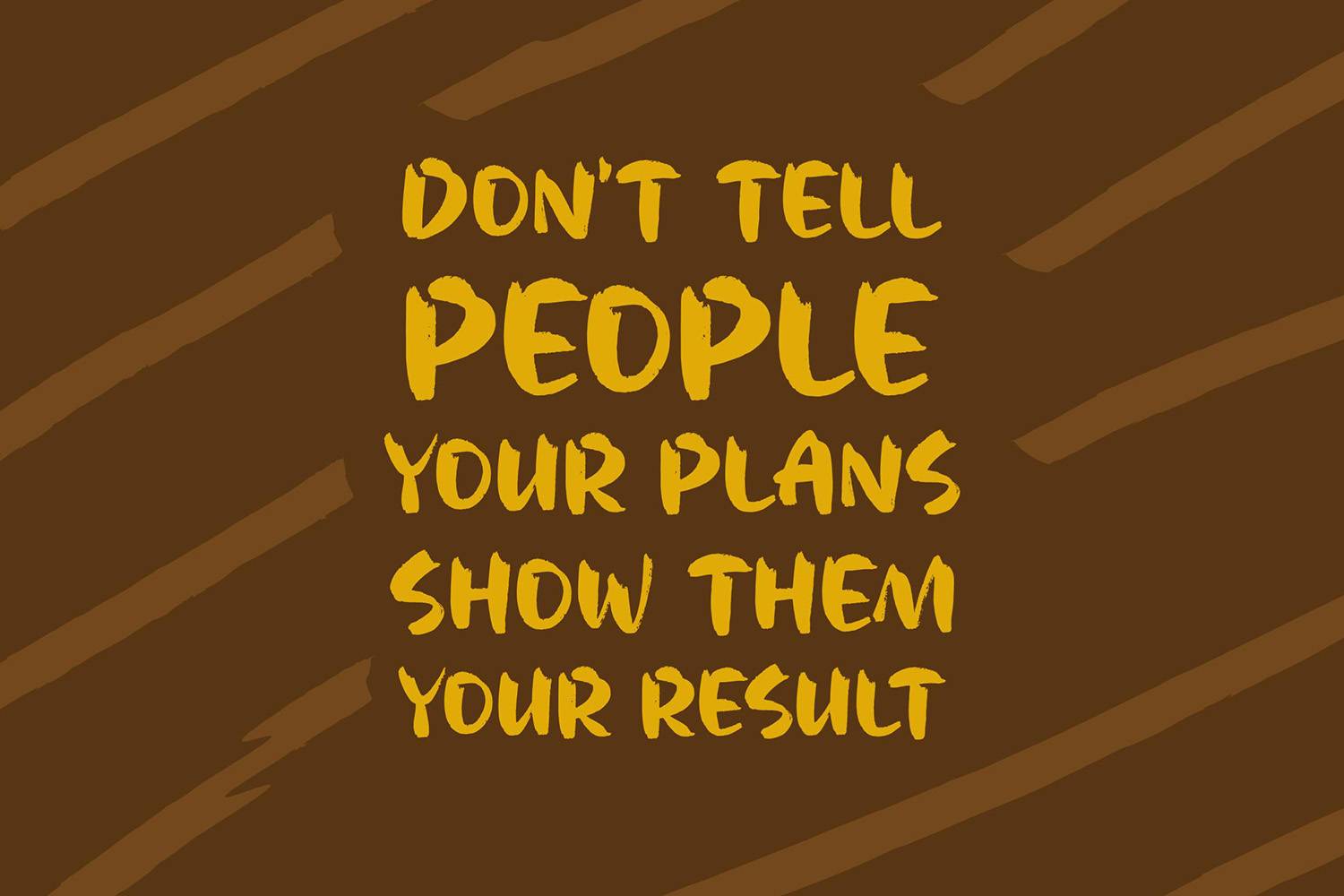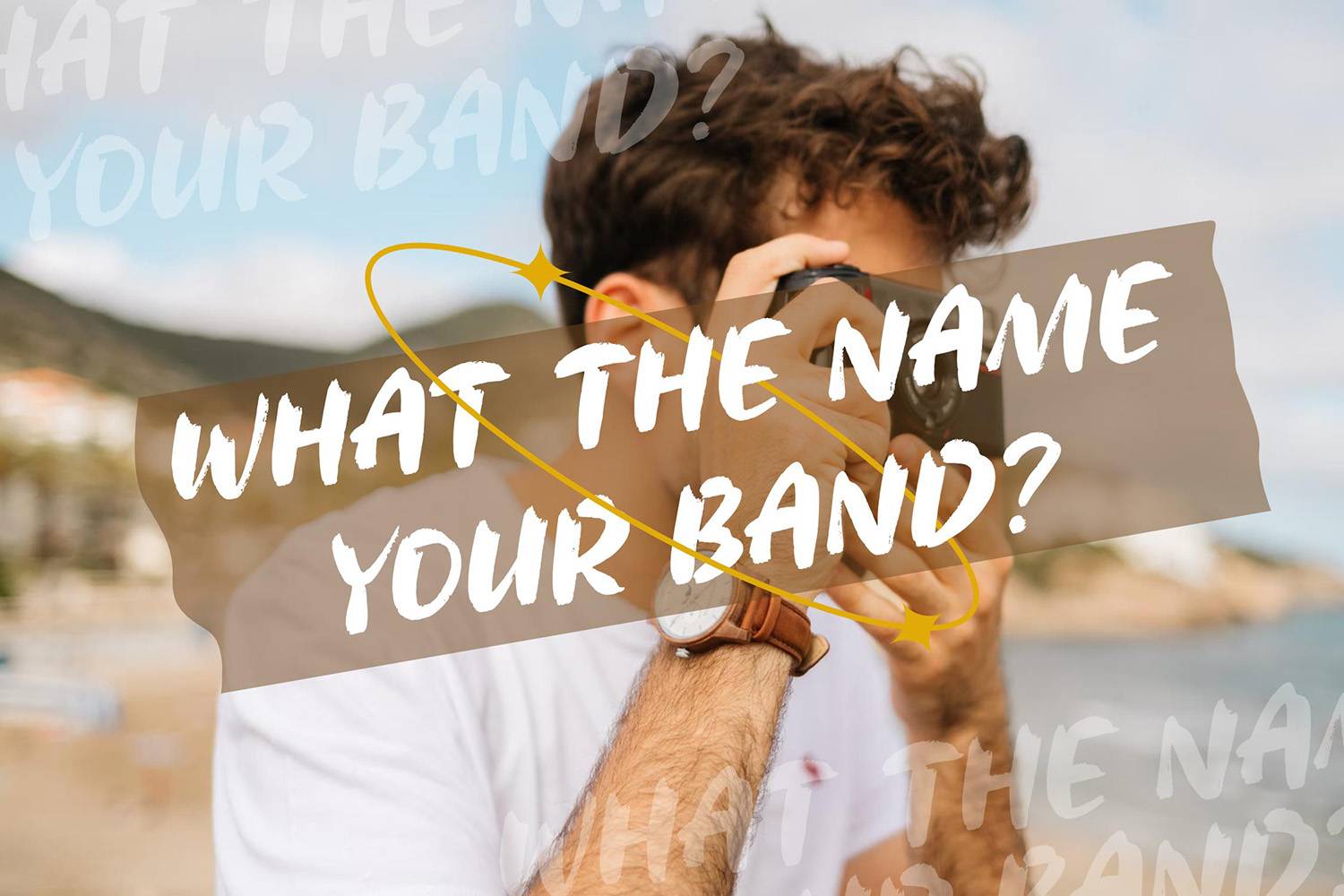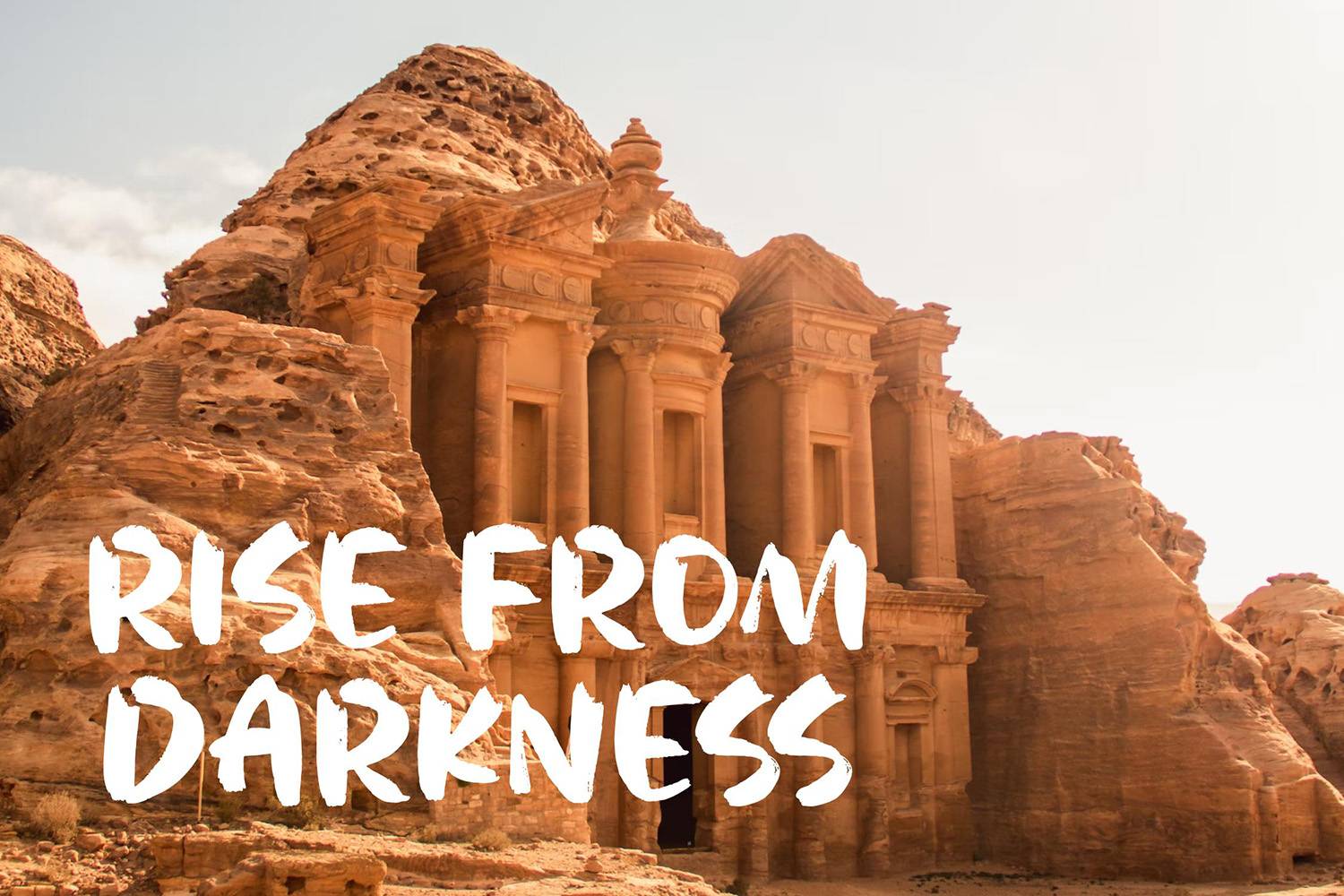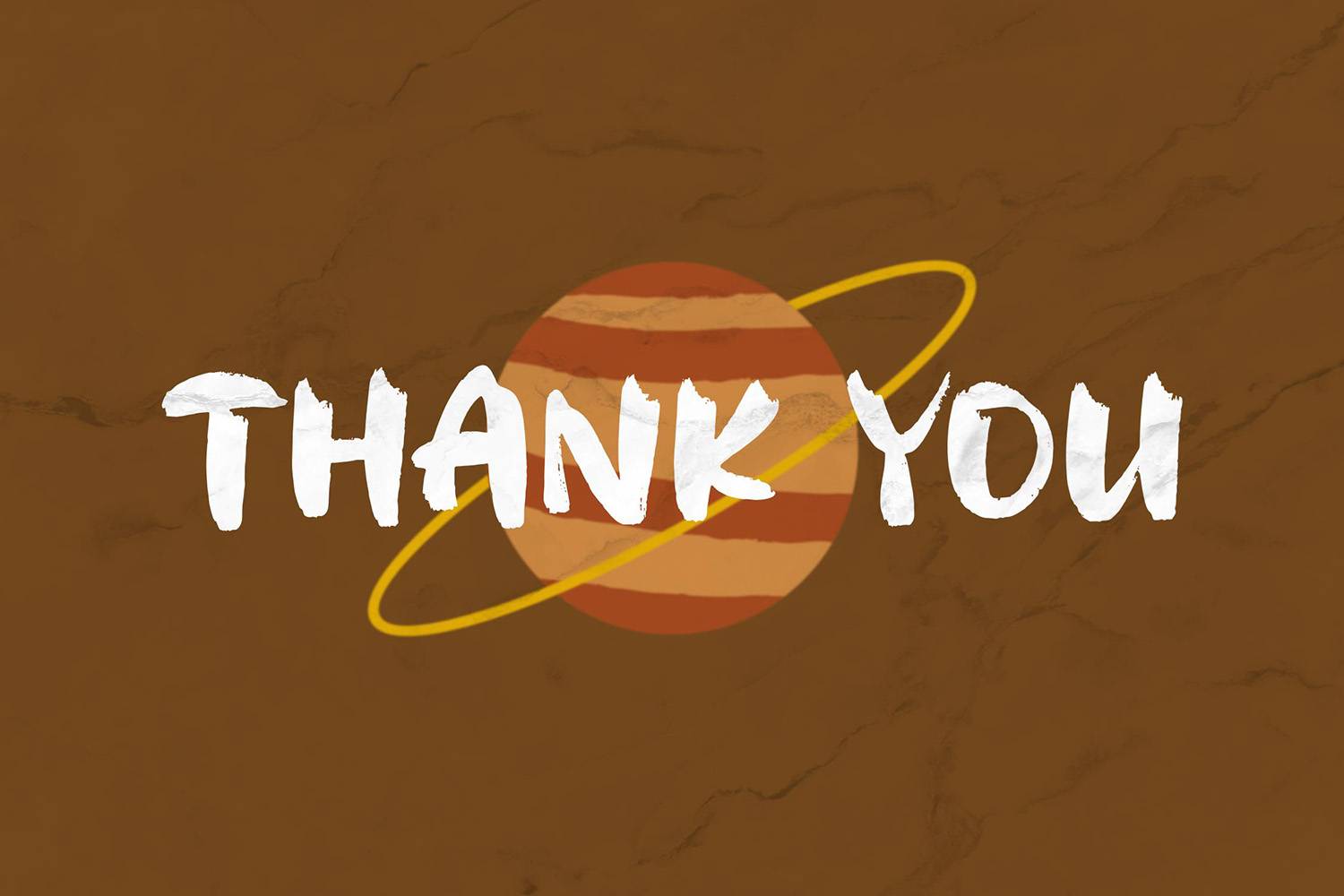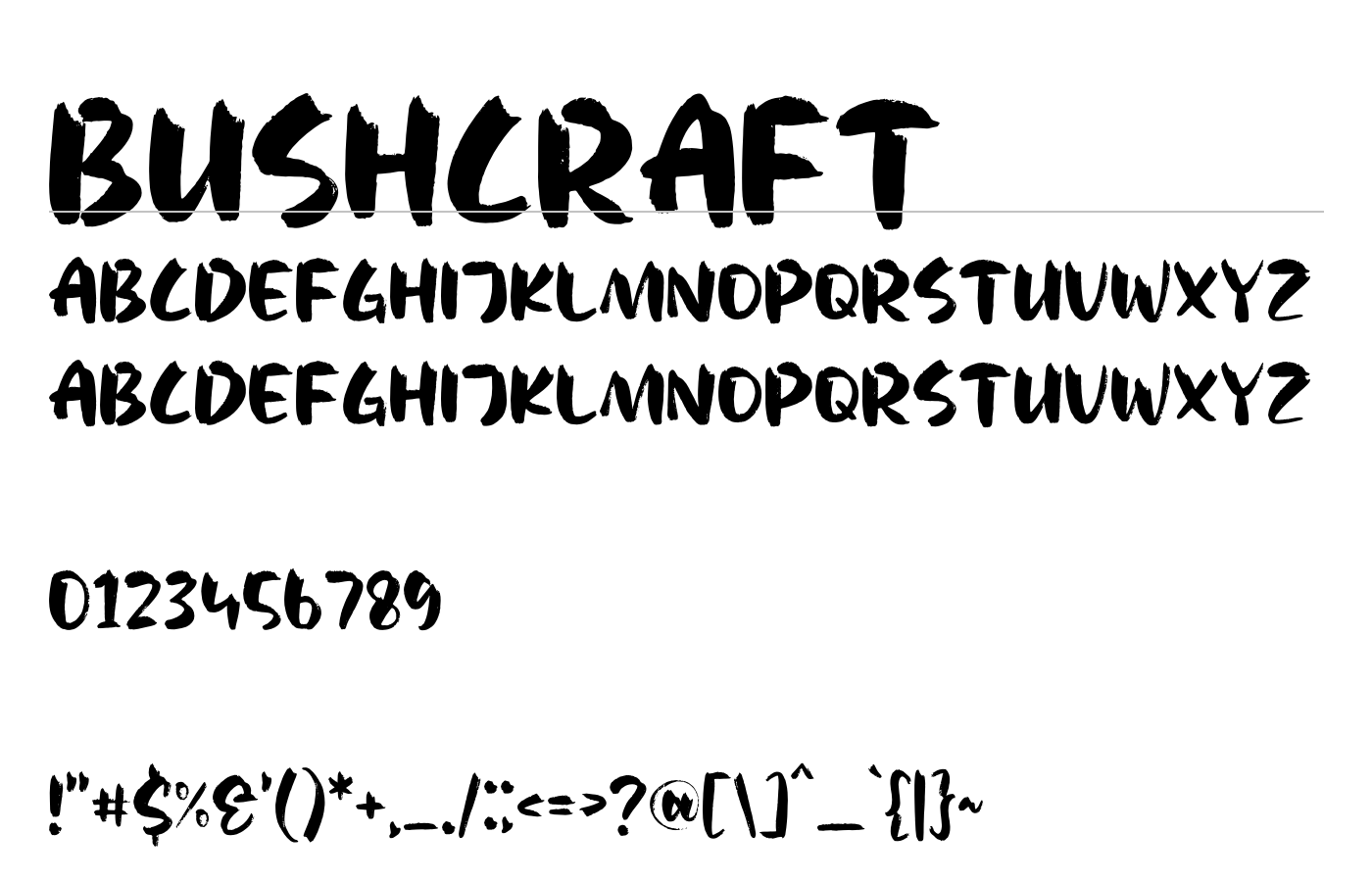
Bushcraft Font is a bold, hand-drawn script with a rough, brushstroke texture that gives it a natural and adventurous feel. Its irregular, organic letter shapes and strong presence make it perfect for outdoor-themed designs, logos, or headlines that need an energetic and rugged personality. This font works well where a casual, handcrafted look is desired to evoke authenticity and creativity.
Bushcraft Font
About Bushcraft Font